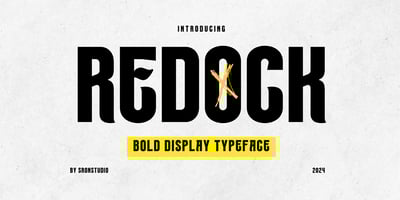
Redock Font Family was designed by Muhamad Yusron Billah and published by Sronstudio. Redock contains 1 styles and family package options. Introducing “Redock,” a bold condensed display font that packs a punch with its strong and commanding presence. This font features tightly spaced, thick letterforms, making it perfect for attention-grabbing headlines, impactful posters, logos, and branding projects. “Redock” is designed to stand out and deliver your message with confidence and clarity, whether in print or digital formats. Elevate your designs with the robust and powerful appeal of “Redock.”Included:- Ligatures- Numeral & Punctuation- PUA Encoded- Multilingual support- Simple Installation- Work both on Mac and WindowsThank you very much 🙂